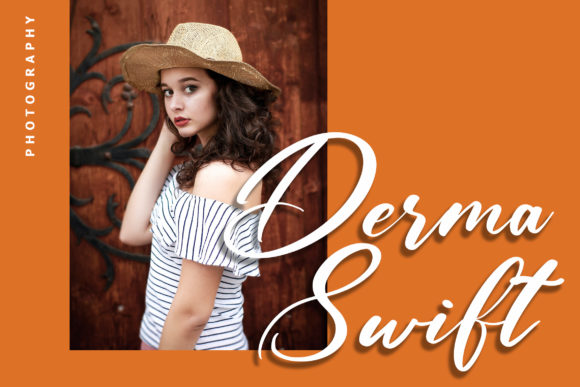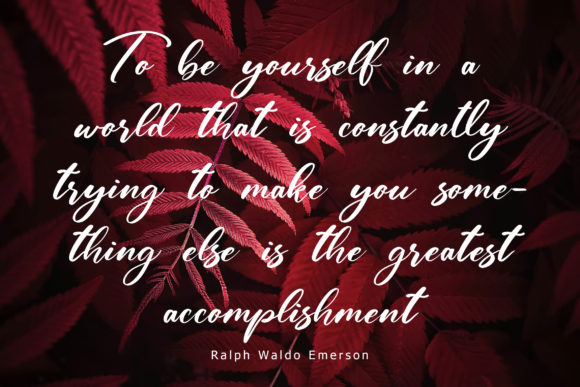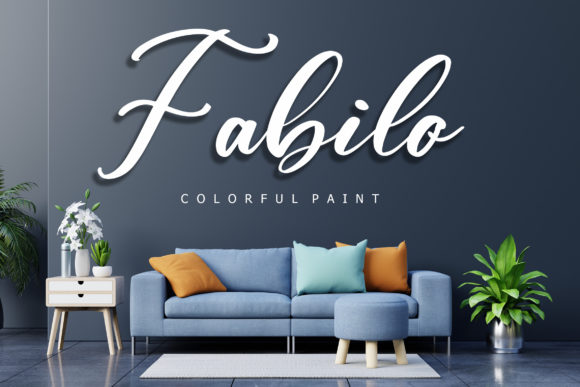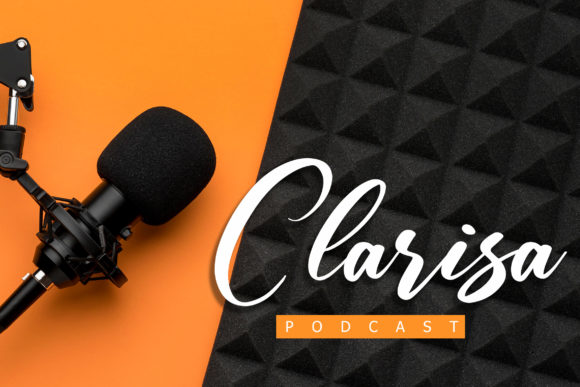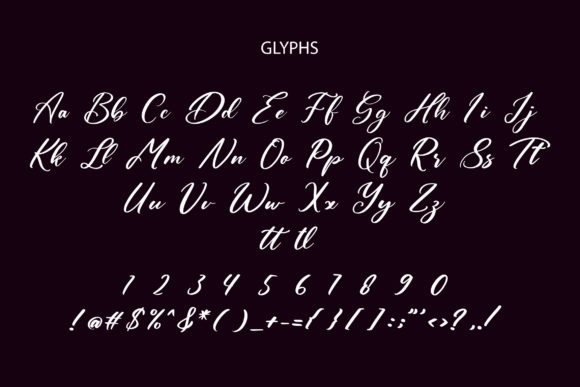
The Art of Elegant Typography: Unlocking the Power of Brelind Font
As a designer, there’s no greater thrill than bringing a concept to life. It’s that moment when the words on your screen start to take shape, and your vision begins to feel tangible. For me, it’s the moment when I choose the perfect font – and that’s exactly what the Brelind Font does. This elegant calligraphy font is the perfect combination of sophistication and charm, making it a go-to choice for designers who want to elevate their branding projects.
The Brelind Font is more than just a font – it’s a tool that helps designers create a lasting impression. Whether you’re working on a logo, wedding design, or social media post, this versatile font is sure to add a touch of elegance. Its value lies in its ability to convey professionalism, creativity, and attention to detail, making it a valuable asset for designers who want to stand out in a crowded market.
- Font Style: Script
- Unique Characteristics: Elegant, cursive script font with a touch of elegance and sophistication; ideal for invitations, wedding stationery, and other formal occasions
Brelind Font Review
Overall, I found the Brelind font to be a visually appealing and elegant choice for any project. Its refined features and sleek lines make it perfect for creative applications such as magazines, brochures, and advertising materials.
- Unique aesthetic that sets it apart from more traditional fonts.
- Excellent for use in headings and titles, where it can really shine.
- Works well in both print and digital formats.
However, I did find a few limitations that might make it less suitable for certain projects.
- Some characters may not be as detailed as I would have liked.
- The font may not be as readable at smaller font sizes.
- It can be a bit difficult to use in text-heavy content, as it may become overwhelming.
Despite these limitations, I think the Brelind font is a great choice for projects where a touch of elegance is needed. Its unique features and sleek lines make it a standout choice for creative applications.
Common Use Cases for Brelind Font
Brelind Font is suitable for a variety of design projects, including:
- Set the font as the title font for the book’s title.
- Pair it with a serif font for the author’s name or tagline to create contrast.
- Experiment with different font sizes and colors to create visual hierarchy.
- Watercolor textures to create a dreamy, ethereal effect.
- Illustrations of trees, flowers, or animals to bring the forest to life.
- Soft, muted color palettes to evoke a sense of wonder and enchantment.
- Choose a meaningful quote or phrase that resonates with your audience.
- Set Brelind Font as the main font and experiment with different font sizes, colors, and styles.
- Play with leading, tracking, and kerning to create visually appealing arrangements.
- Simple, geometric shapes to create a clean and modern look.
- Photographic images or illustrations that complement the theme of the quote.
- Bold, contrasting colors to make the
Project 1: Whimsical Woodland Book Cover
Create a magical book cover that transports readers to an enchanted forest. Brelind Font’s playful and elegant style will add a touch of whimsy to your design.
To use Brelind Font in this project:
Combine Brelind Font with:
Project 2: Brelind Font Typographic Poster
Create a stunning typographic poster that showcases the beauty of Brelind Font. This project is perfect for typography enthusiasts and design students.
To use Brelind Font in this project:
Combine Brelind Font with: